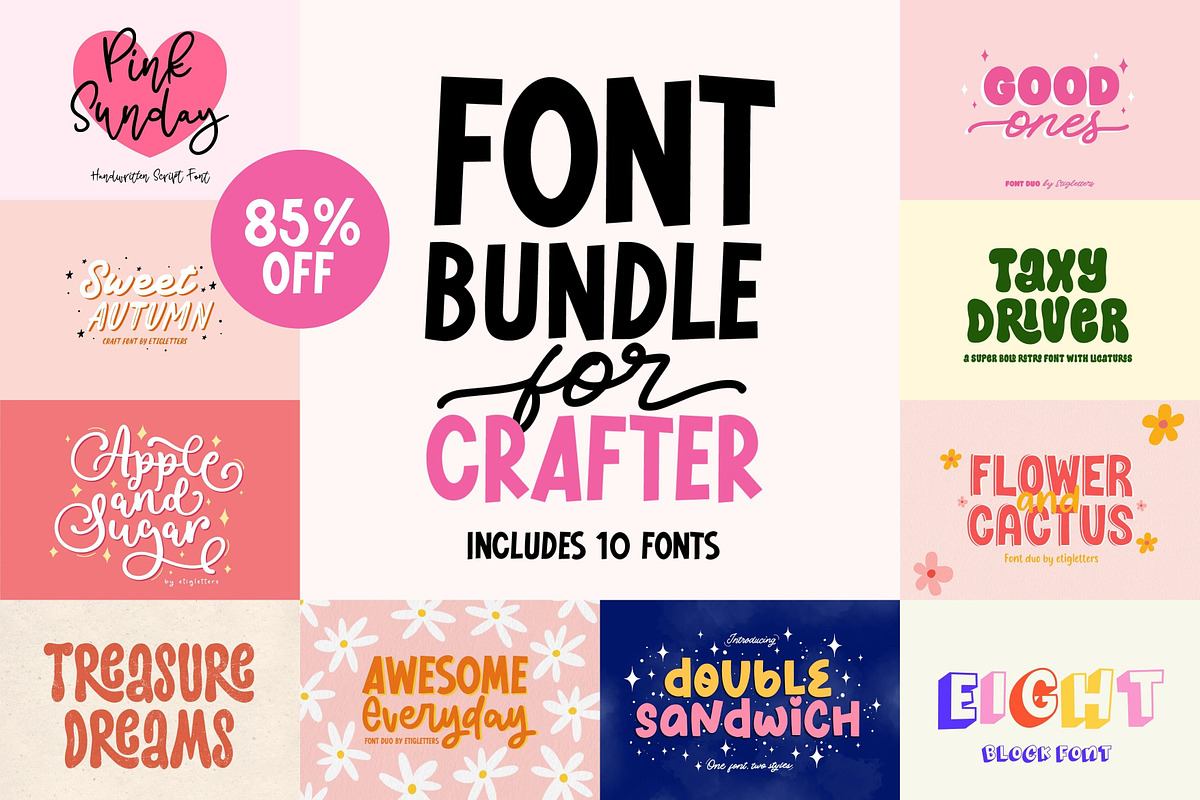
Font Bundle for Crafter Free Download is a thoughtfully curated collection of versatile and creative fonts designed specifically for crafters and designers. With a mix of handwritten, script, serif, and display fonts, this bundle is perfect for creating DIY projects, greeting cards, custom merchandise, logos, and more.
Whether you're crafting custom gifts, designing invitations, or building a brand, this bundle brings variety and creativity to your typography. It’s the ideal font collection for crafters who need high-quality, ready-to-use fonts for their design projects.